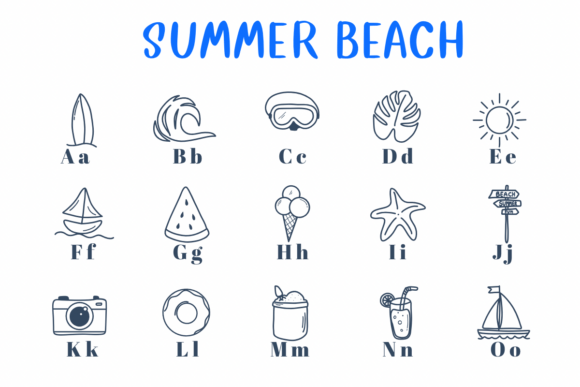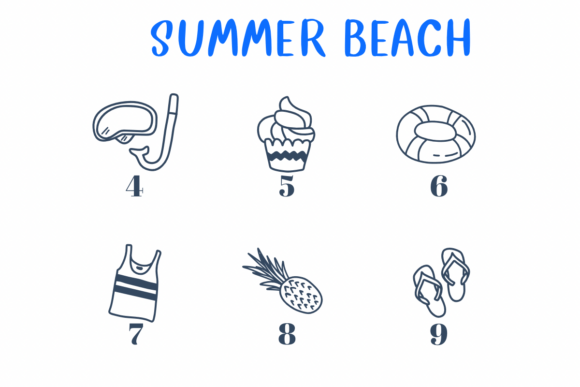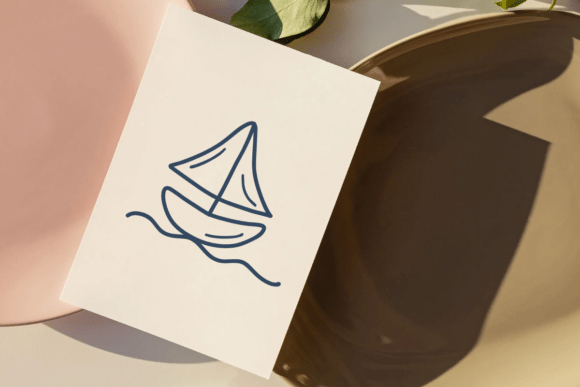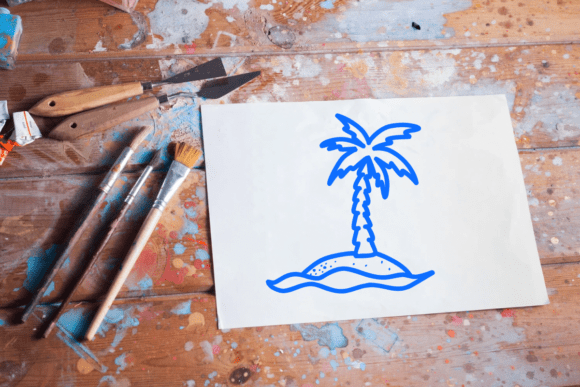
Summer Beach Font
Summer Beach is a dingbats font with a sketched theme. This font can enhance your creative projects such as wedding invitations, DIY, crafts, decorations, logos, and many other creative ideas.